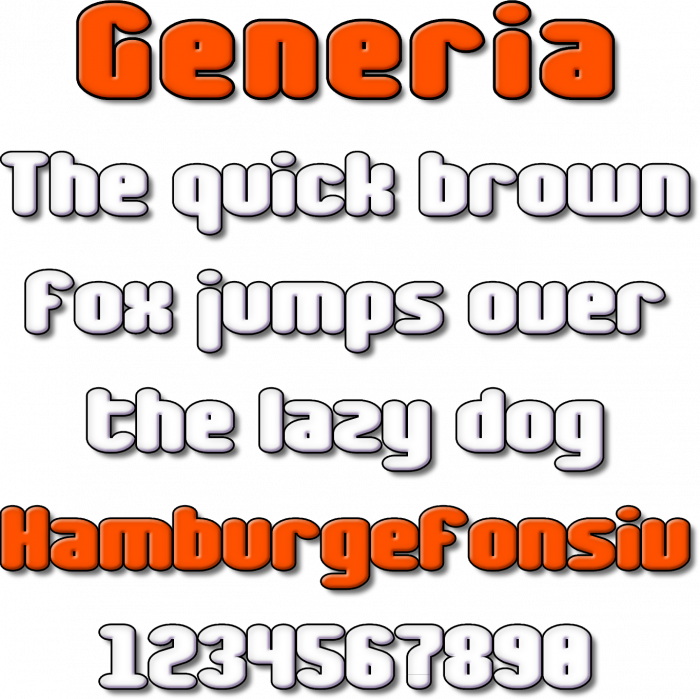
i made a recreation of the sample used in genero
The spacing after the æ should definitely be checked and you seem to forgot the accenta on ô, Ů, and ů…
due to the 2 letter fs being the exact same i changed both the uppercase E and F
while making the capital Eng i accidentally made a better looking letter n